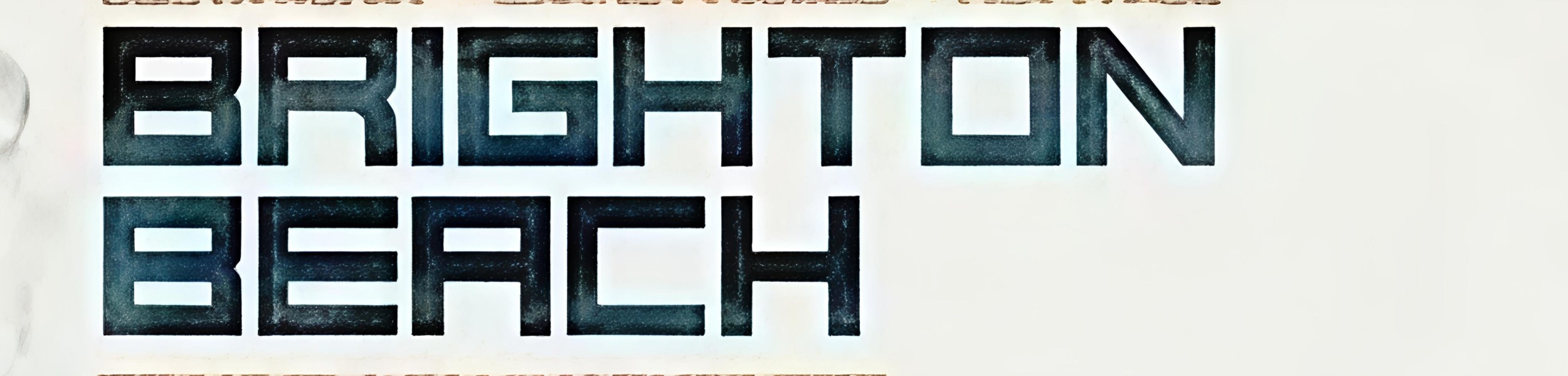
Can someone please help me identifying the font used on Brighton Beach movie poster for the film title? I might be wrong, but I suspect it might be a blending of 2 different styles, dinamight for BRITON and poca for vowels AE and maybe G, because no search engine returns a single style as a result. Thanks a lot in advance.